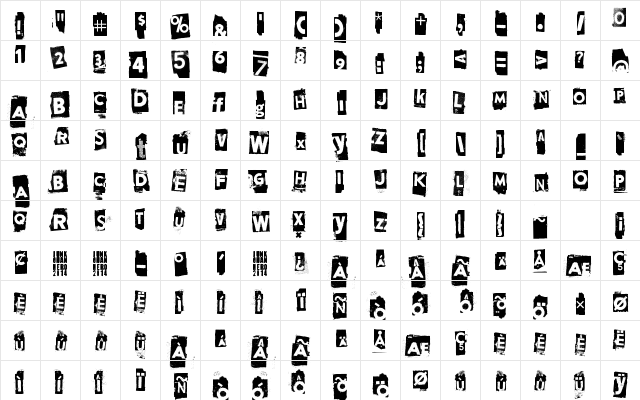
Appendix Regular Free Font
Appendix Regular
Designer: junkohanhero
Design Context for Appendix
Appendix is a composed and adaptable typeface that performs quietly and consistently across a wide range of design contexts.